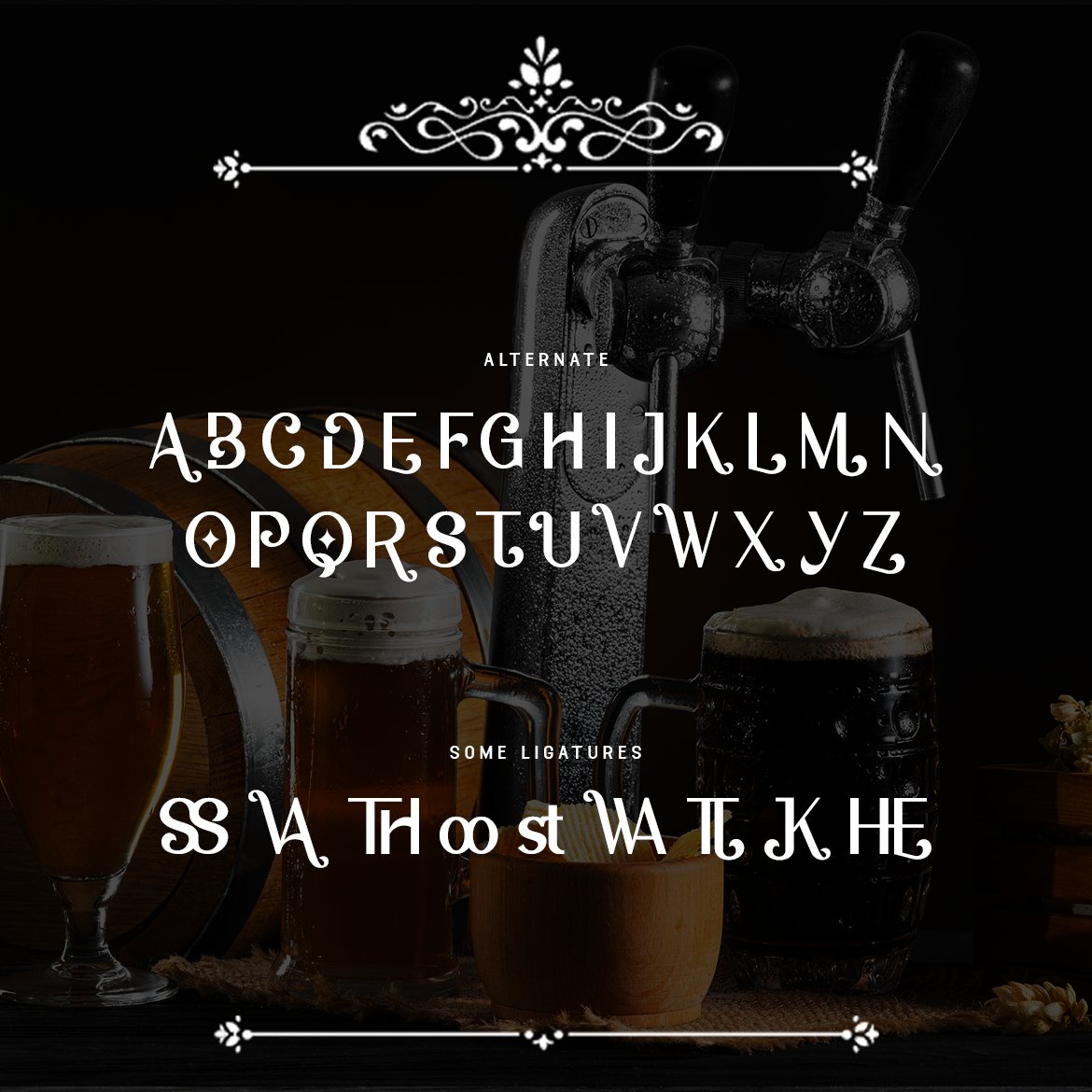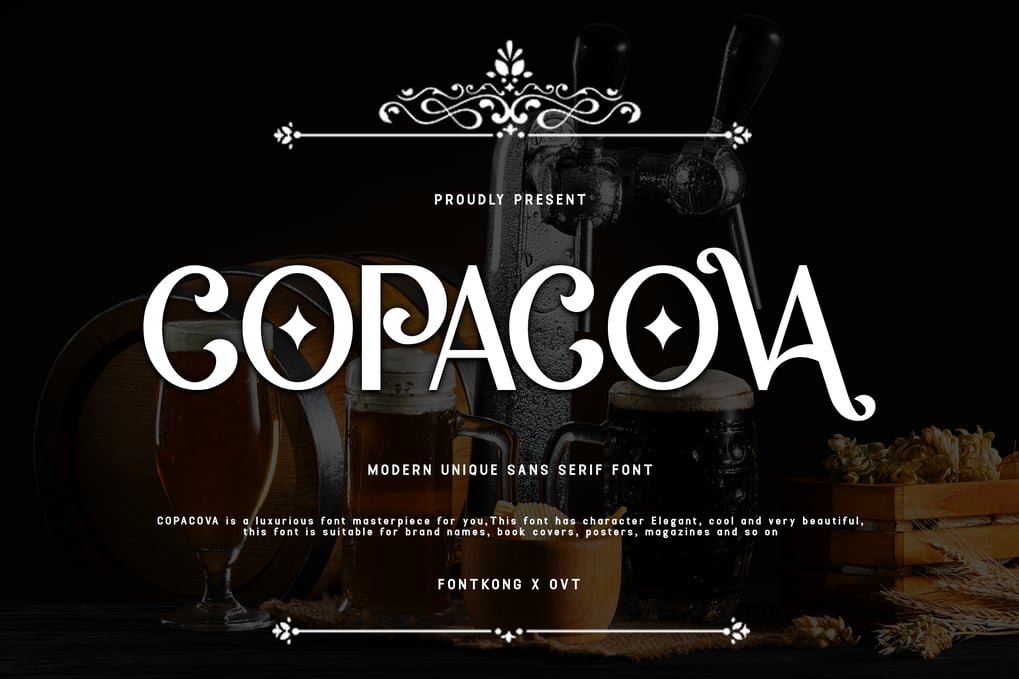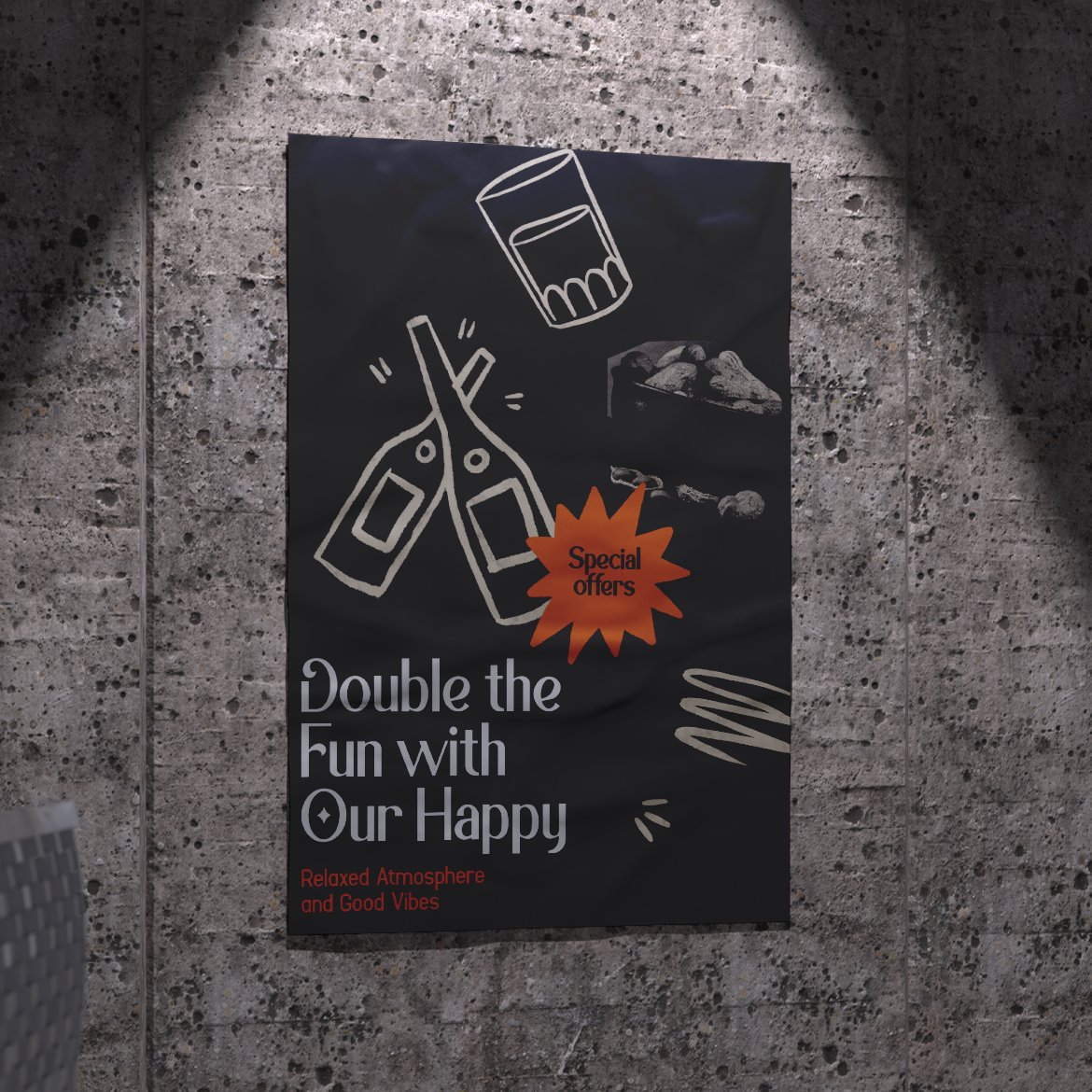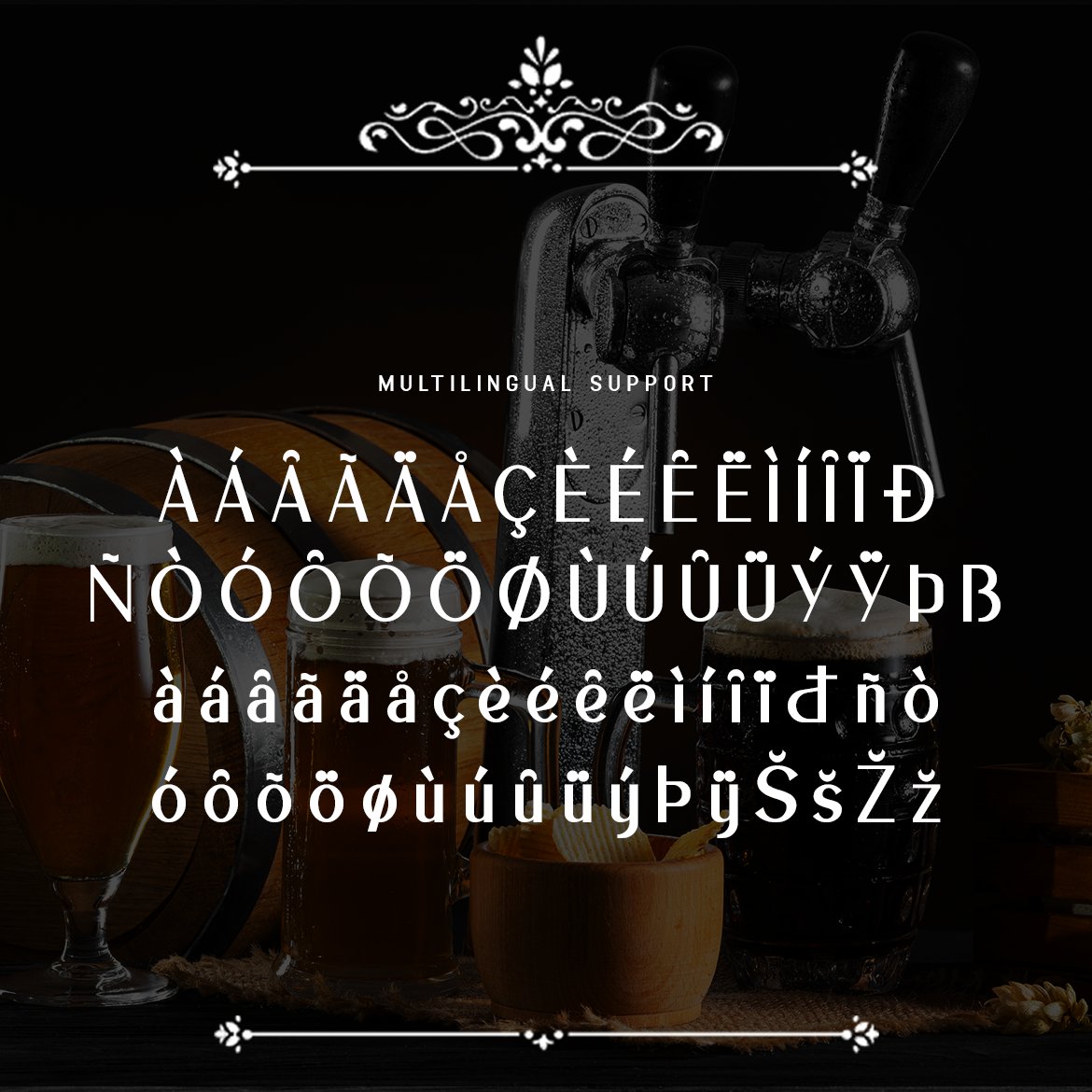
Copacova – A Modern Unique Sans Serif Font
Elevate your design projects with Copacova, a font that embodies the perfect blend of modernity and uniqueness. Its distinctive style and adaptability make it an essential addition to any designer’s toolkit for creating standout and contemporary visuals. Enhance your work with Copacova and experience the versatility of modern sans serif typography.